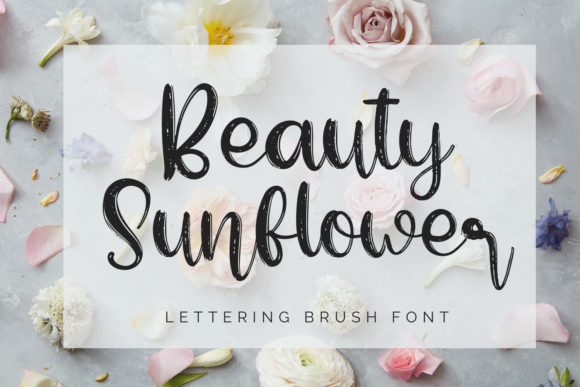
Immerse yourself in a world of enchantment with the Beauty Sunflower Font, a captivating script font that will ignite your creativity and transform your designs into works of art.
Unleash the boundless possibilities of Beauty Sunflower, a font that epitomizes grace and elegance. Its meticulously crafted letters, each adorned with gentle curves and graceful strokes, will add a touch of magic to all your creations. Whether you're designing invitations for a special occasion, crafting social media posts that stand out, or creating marketing materials that captivate your audience, Beauty Sunflower will elevate your designs to new heights.
Experience the versatility of Beauty Sunflower, a font that seamlessly adapts to a myriad of styles and projects. Its whimsical charm will add a playful touch to children's books, while its sophisticated flair will lend a touch of elegance to wedding invitations and branding materials. The possibilities are endless, allowing you to express your unique style and vision.
Fall head over heels for the charm of Beauty Sunflower, a font that will make your designs bloom with joy. Its enchanting characters will add a touch of magic to any project, leaving a lasting impression on your audience.